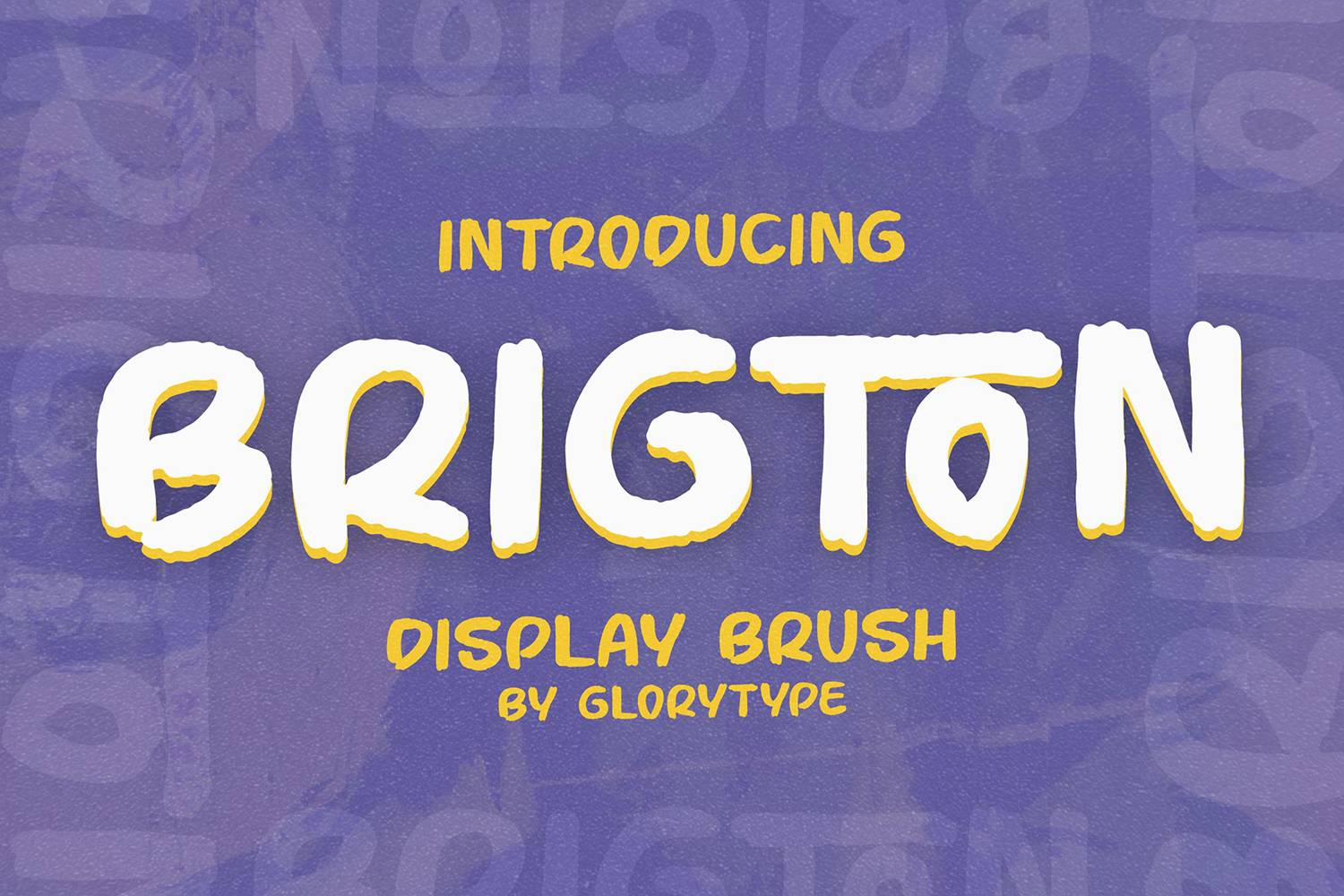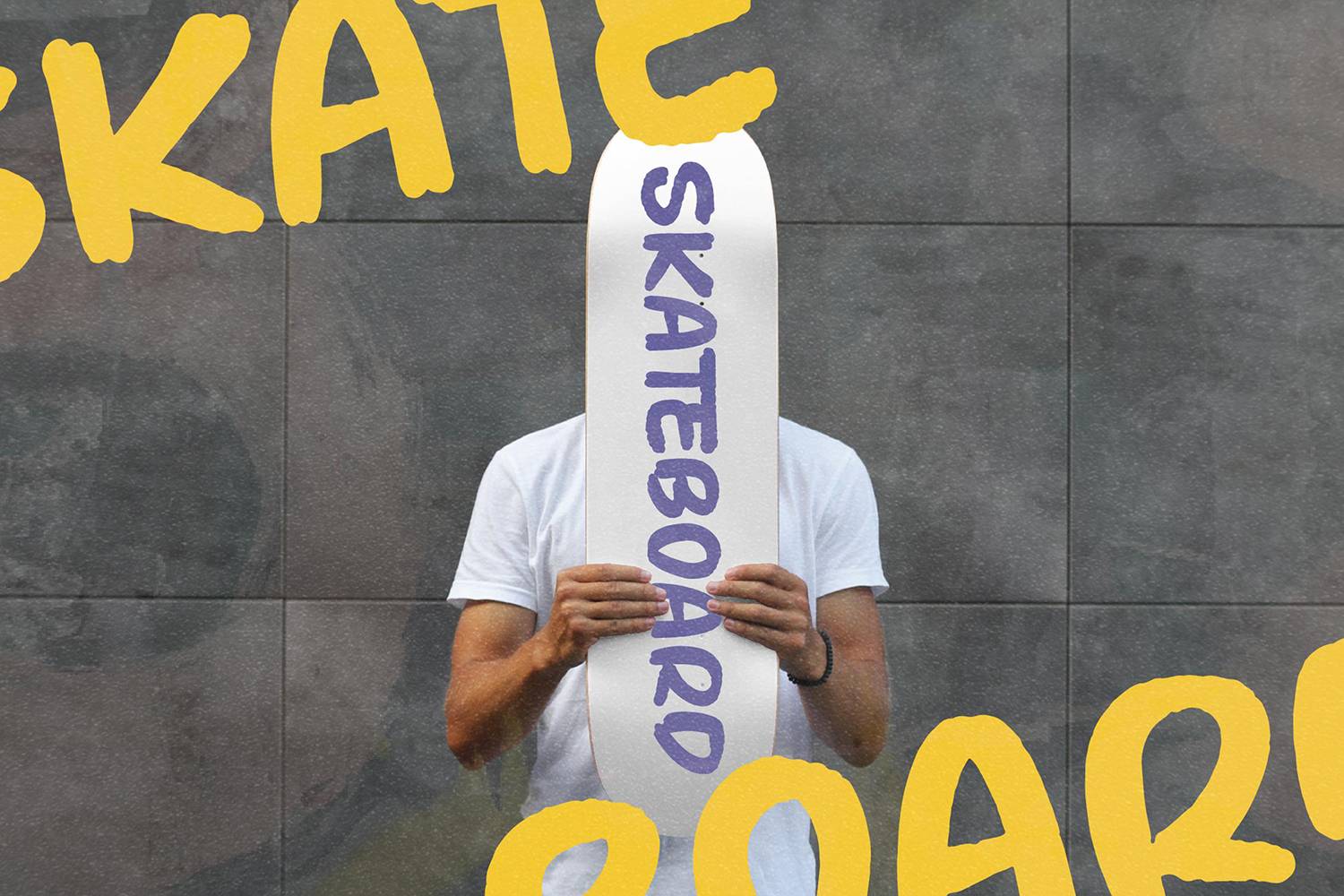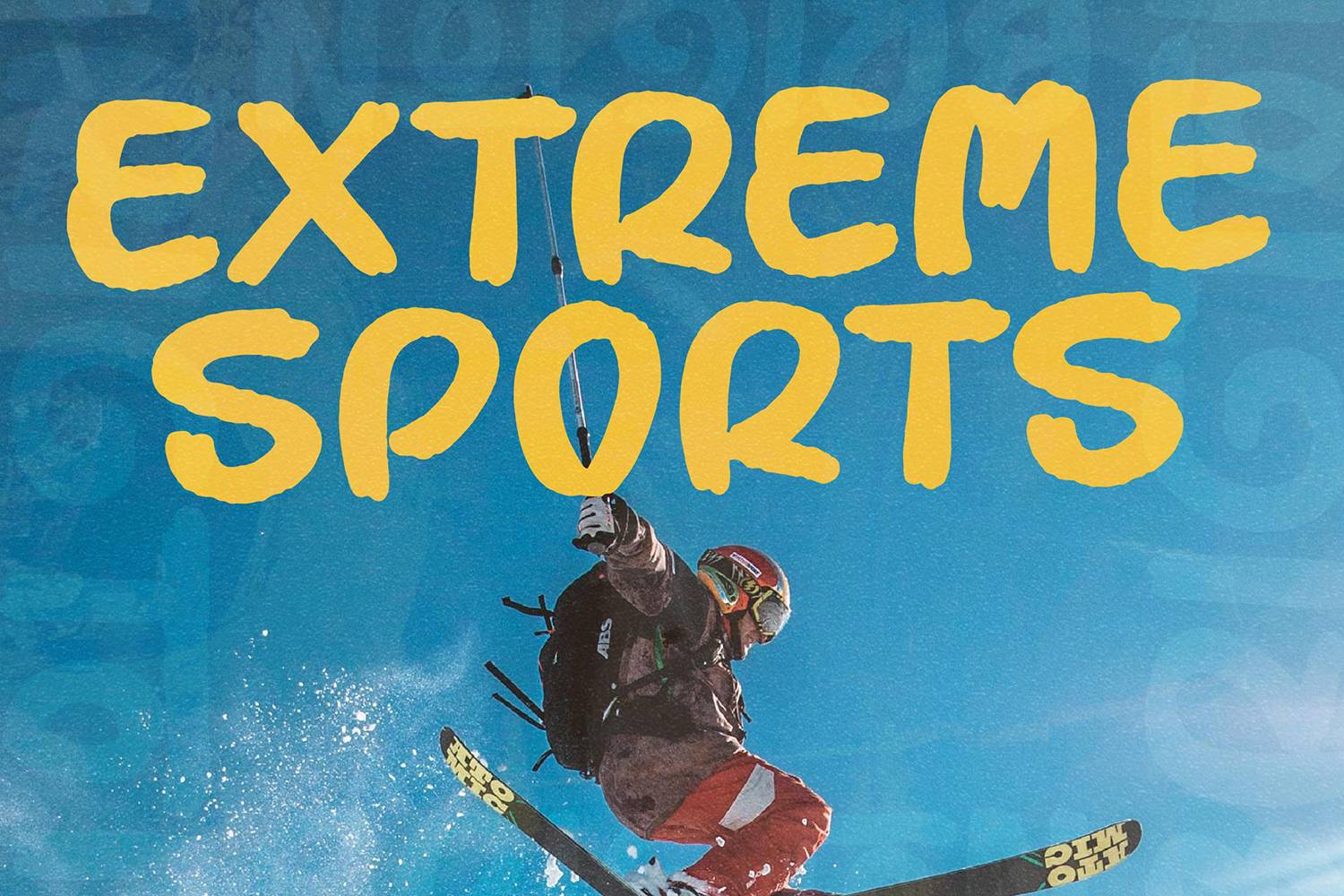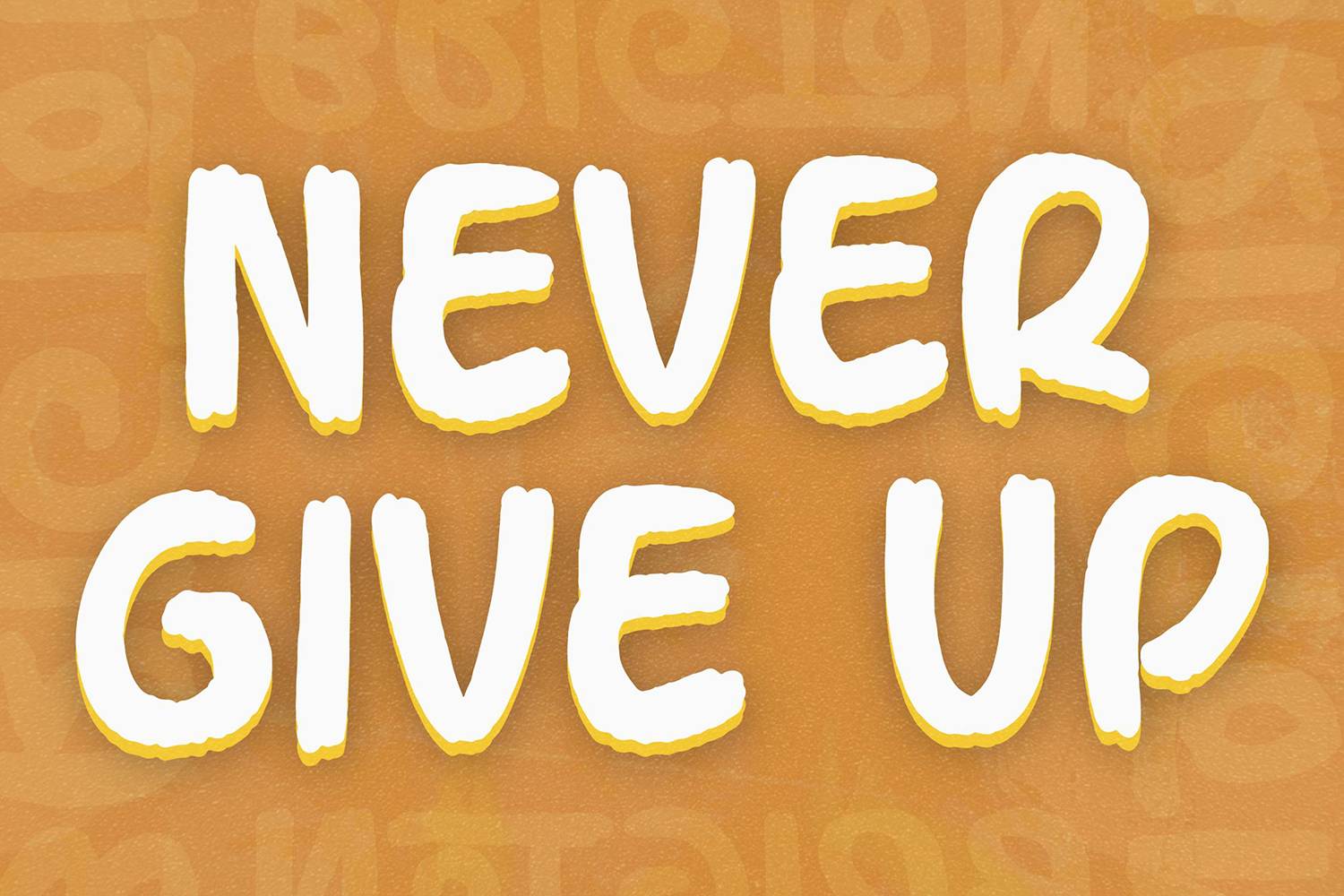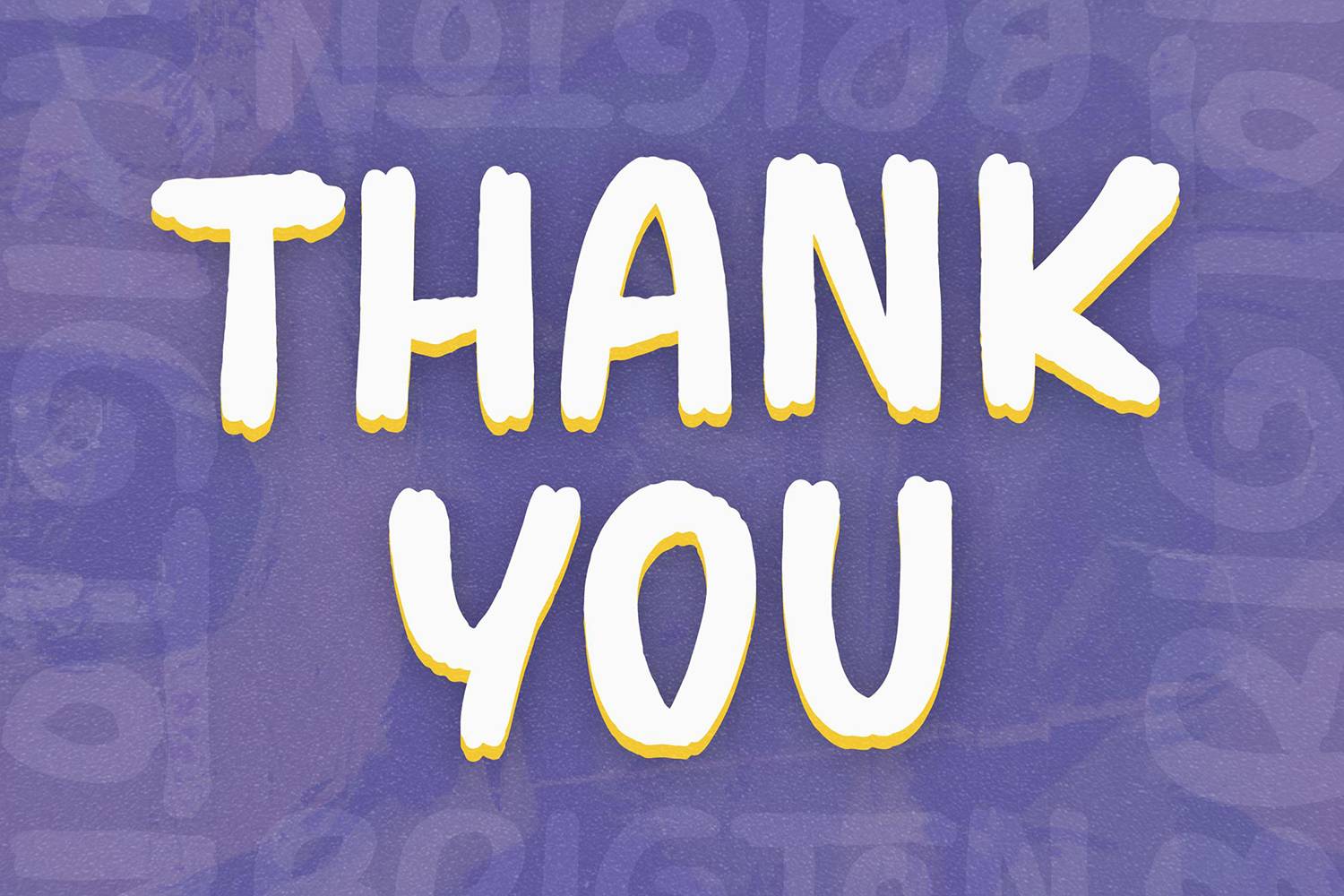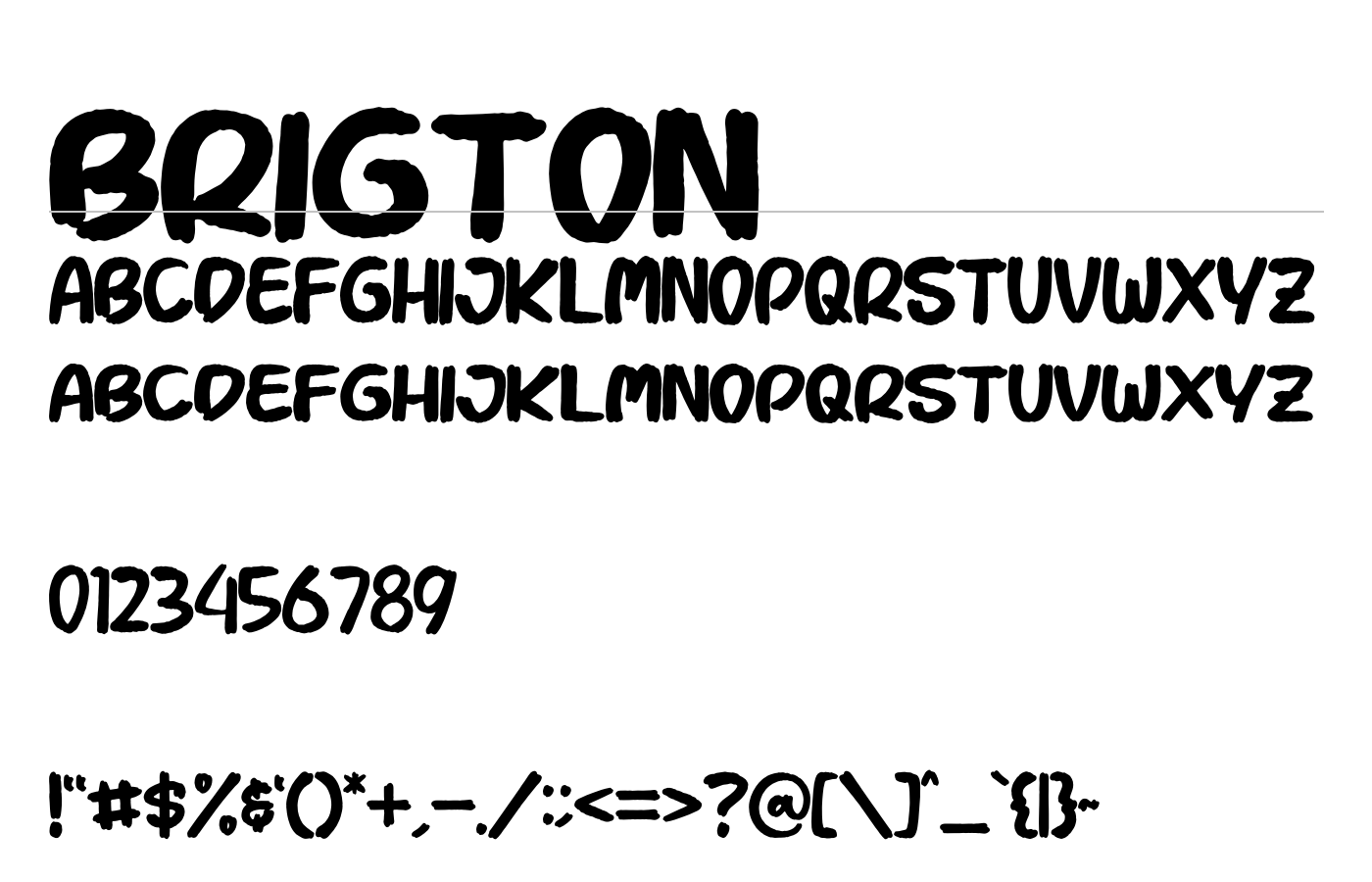
Brigton is a bold, playful sans serif font with a hand-drawn, casual style that feels lively and approachable. Its rounded, irregular strokes and high x-height give it a friendly personality, making it ideal for creative projects, children’s designs, and informal branding where a fun, energetic vibe is desired. This font works well for headlines, logos, and packaging where a unique, hand-crafted appearance can stand out.
Brigton Font